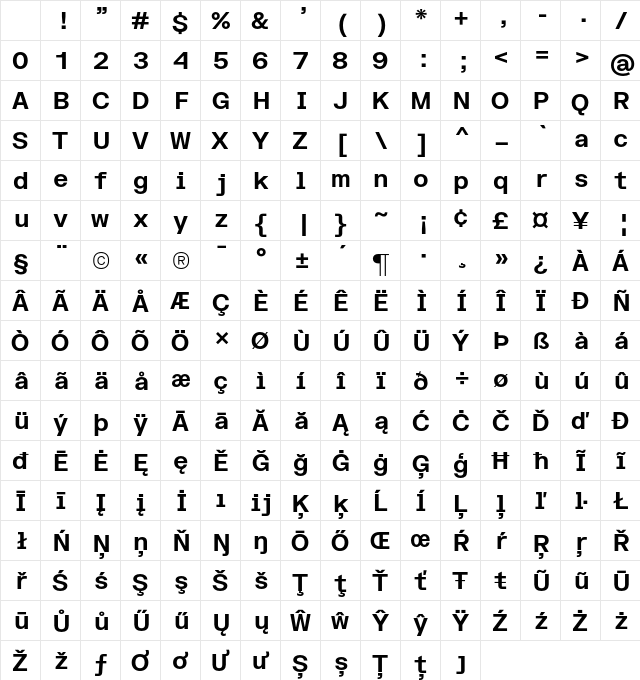
Complete FK Grotesk SemiMono Bold glyph index. Displaying only characters natively supported by FK Grotesk SemiMono Bold font.
FK Grotesk SemiMono uses fixed-width spacing throughout, giving it the structured, systematic character associated with coding environments and technical documentation. Its bold stroke weight gives it real presence on the page.
Pro Tip: Use FK Grotesk SemiMono with slightly increased line-height for extended reading - fixed-width spacing can feel dense in longer passages without extra breathing room.